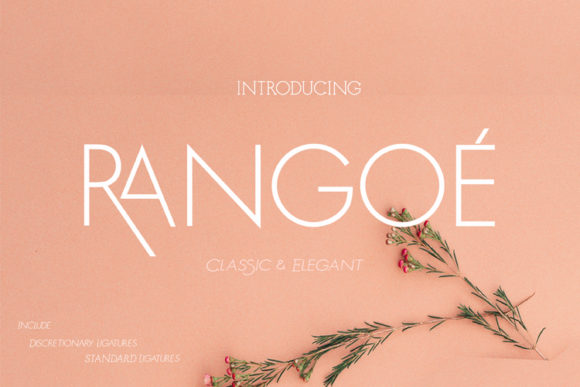
Rangoe Font
Unleash your creativity with the Rangoe Font, an exquisite display typeface that will transform your designs into a visual masterpiece. Created by ed.creative, this font family invites you to embrace its distinctive charm, adding a touch of sophistication and elegance to every project. Step into a world where typography meets artistry, and let Rangoe captivate your audience with its timeless allure.
With its contemporary nature, Rangoe Font breathes life into your words, making them leap off the screen. Its carefully crafted letterforms exude a sense of movement and dynamism, captivating your readers and leaving a lasting impression. Rangoe is not just a font; it's an experience that will elevate your designs to new heights.
Whether you're crafting logos, posters, branding materials, or social media graphics, Rangoe Font is your perfect companion. Its versatility knows no bounds, allowing you to unleash your creativity and explore endless possibilities. Let Rangoe's enchanting characters add a spark of magic to your projects, leaving your audience spellbound.
Join the creative revolution and embrace the Rangoe Font today! Discover the power of typography and let your designs shine brighter than ever before. Rangoe awaits you, ready to ignite your imagination and transform your creative vision into a breathtaking reality.